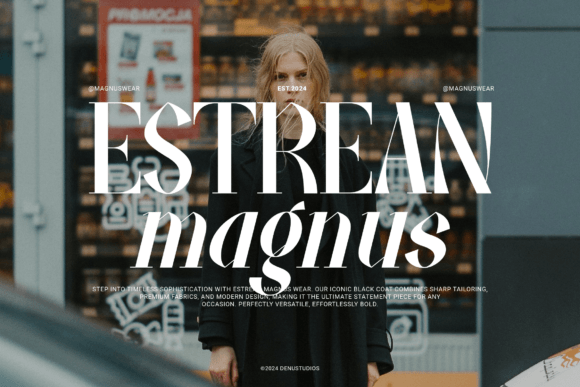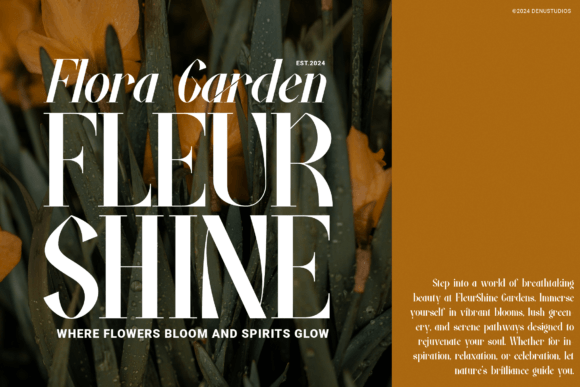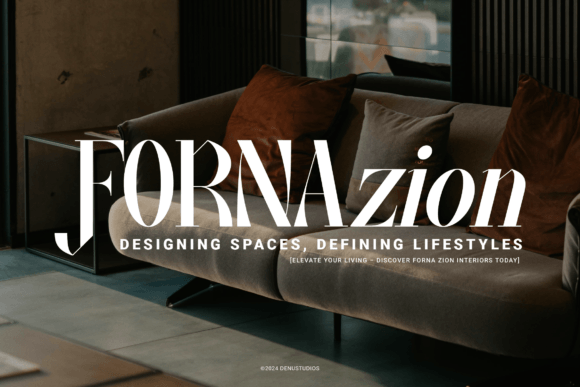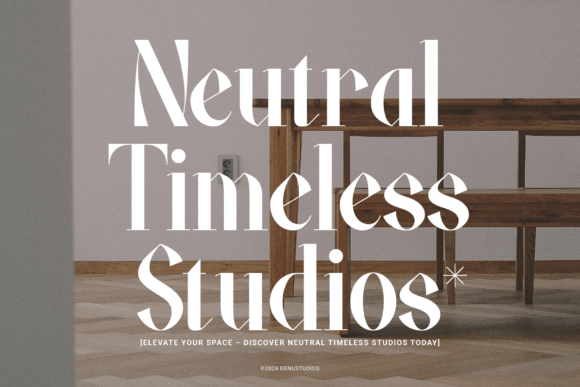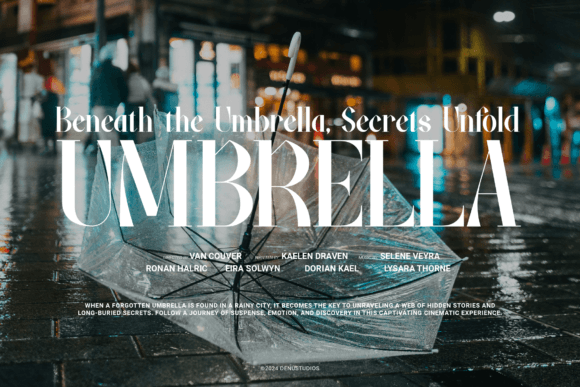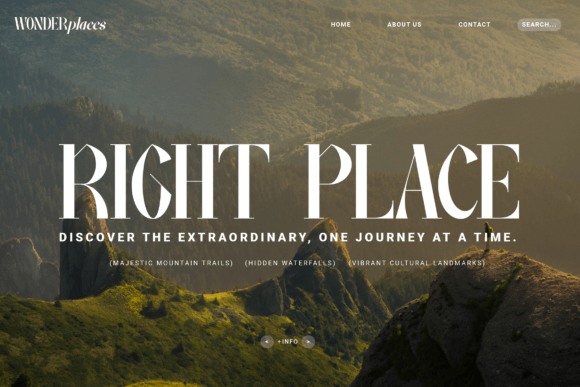
Introducing Fiably Manor: The Epitome of Luxury Typography
In the realm of typography, few fonts manage to convey the essence of luxury, elegance, and sophistication as effectively as Fiably Manor. This stunning modern display serif font is a masterpiece of design, boasting sharp contrasts, elegant proportions, and a timeless appeal that is sure to captivate designers and crafters alike. Whether you’re working on luxury branding, editorial designs, wedding invitations, or high-end logos, Fiably Manor is the perfect choice for those seeking to make a lasting impression.
A Font of Refined Elegance
Fiably Manor’s design is characterized by its refined details and dramatic letterforms, which work in harmony to create a sense of grandeur and exclusivity. The font’s sharp contrasts between thick and thin strokes add a level of sophistication, making it ideal for high-end applications where elegance is paramount. The elegant proportions of each letterform ensure that the font remains legible, even at larger sizes, making it perfect for display purposes.
One of the standout features of Fiably Manor is its versatility. The font comes equipped with stylish ligatures, alternates, and multilingual support, providing designers with a wide range of creative possibilities. Whether you’re looking to add a touch of whimsy to your design or require support for multiple languages, Fiably Manor has got you covered. This level of versatility makes it an excellent choice for designers who need a font that can adapt to various design requirements.
Luxury Branding and Beyond
Fiably Manor’s luxury aesthetic makes it an obvious choice for high-end branding projects. Its elegant design and sophisticated feel ensure that your brand stands out from the competition, conveying a sense of exclusivity and refinement. However, the font’s versatility means it’s also perfectly suited for editorial designs, wedding invitations, and high-end logos, making it a valuable addition to any designer’s toolkit.
Timeless Sophistication
Trends in typography come and go, but Fiably Manor’s classic design ensures it remains timeless. The font’s sophisticated appeal will not date, making it a wise investment for designers who want their work to stand the test of time. Whether you’re working on a project that requires a modern edge or a classic touch, Fiably Manor’s elegant design ensures it will fit seamlessly into any design aesthetic.
Fiably Manor is not just a font; it’s a design statement. For designers and crafters looking to elevate their work, this font offers a straightforward way to add a touch of luxury and sophistication. Its ease of use and versatility make it accessible to designers of all skill levels, while its high-end aesthetic ensures that your work stands out from the crowd.
In conclusion, Fiably Manor is a game-changer in the world of typography. Its stunning modern design, sharp contrasts, elegant proportions, and timeless sophistication make it the perfect choice for luxury branding, editorial designs, wedding invitations, and high-end logos. With its stylish ligatures, alternates, and multilingual support, Fiably Manor offers designers a versatile tool that can convey elegance, grandeur, and exclusivity. If you’re looking to make a lasting impression with your designs, Fiably Manor is an indispensable asset to your creative arsenal.